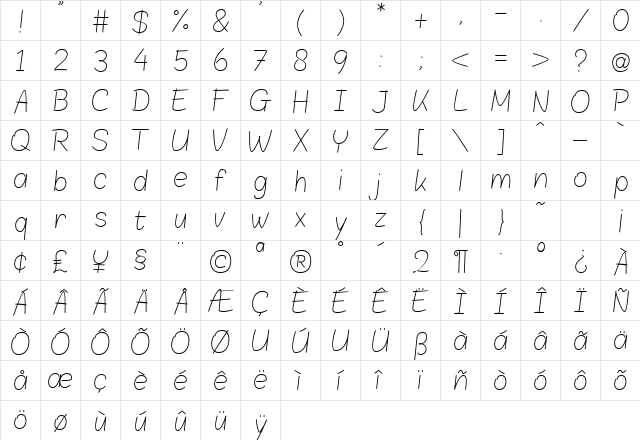
Blokletters Potlood Potlood
Design Context for Blokletters Potlood Typeface
Blokletters Potlood is a composed and adaptable typeface that performs quietly and consistently across a wide range of design contexts.